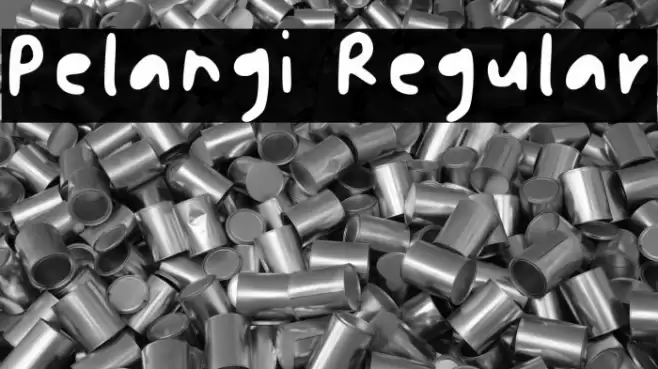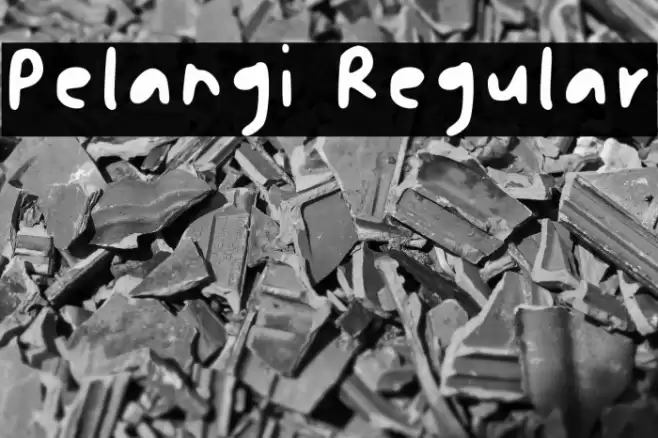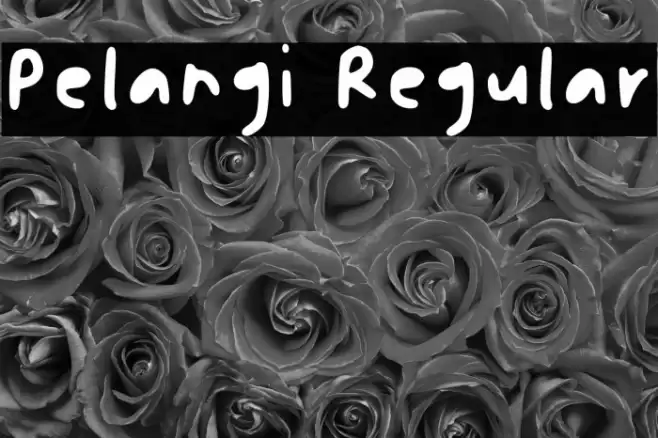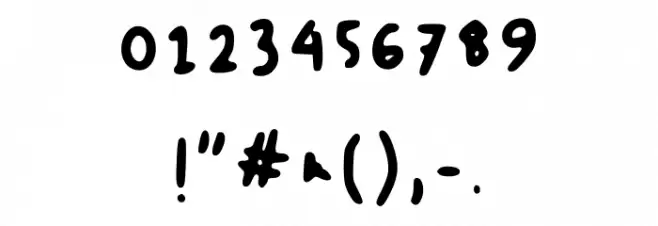
Pelangi Regular Font
Pelangi Regular Description
This playful and whimsical font features a handwritten style with a casual and friendly appearance. The characters are slightly irregular, adding a personal touch to the text. The strokes are bold and rounded, giving it a warm and approachable feel. The font maintains a consistent weight throughout, with moderate spacing between characters that ensures readability while preserving its informal charm. The overall style is reminiscent of hand-drawn lettering, making it ideal for projects that require a personal or creative touch.
A playful, handwritten font with bold, rounded strokes and a casual, friendly appearance from Regular fonts.
- Proposed Projects: Ideal for greeting cards, children's books, playful branding, and creative social media graphics.
- Overall Style: Playful, Casual
- Use Case: Logos, Headlines, Informal Text